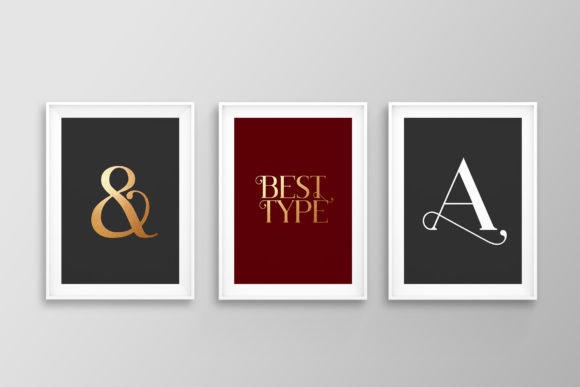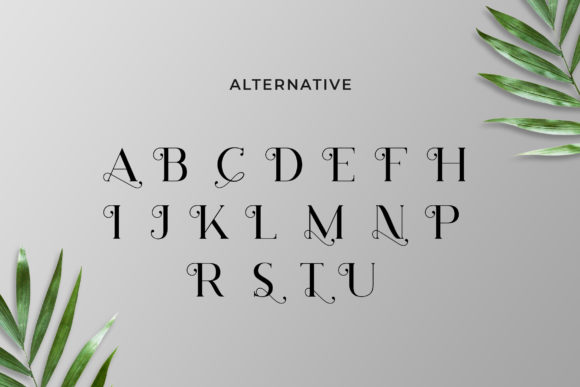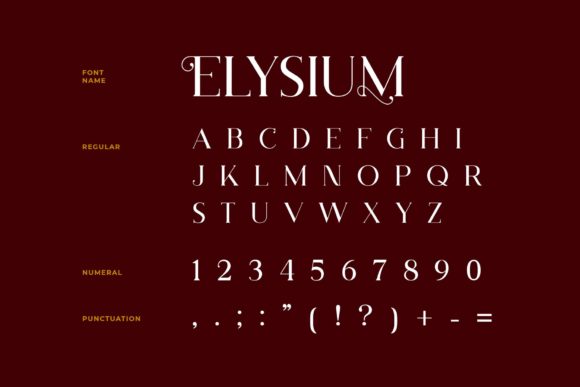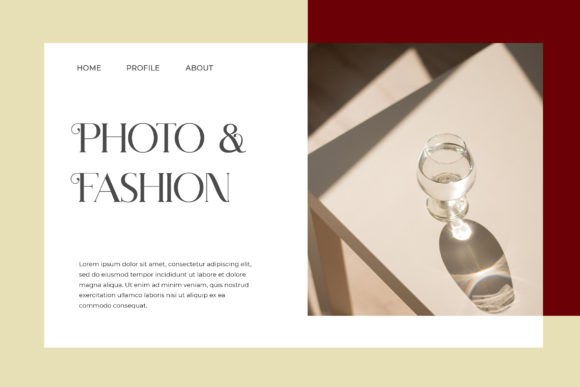
Elysium Font: Elevate Your Designs with Elegance and Assertiveness
Elysium is an elegant and assertive serif font that has been making waves in the design community. Its versatility and sophistication make it an excellent choice for a wide range of projects, from luxury branding to elegant stationery. In this article, we’ll dive into the world of Elysium Font, exploring its features, benefits, and uses, as well as provide tips on how to incorporate it into your creative projects.
The Characteristics of Elysium Font
Elysium Font is a serif font, characterized by its classic and timeless look. The font features elegant lines, refined curves, and a assertive presence that commands attention. Its unique blend of sophistication and confidence makes it perfect for designers and crafters looking to add a touch of luxury to their work.
What Makes Elysium Font Stand Out?
Elysium Font stands out from other fonts due to its exceptional versatility. It can effortlessly be matched to an incredibly large set of projects, making it a valuable addition to any designer’s toolkit. Whether you’re working on a high-end branding campaign, a wedding invitation, or a fashion magazine, Elysium Font is sure to make your project stand out.
Benefits of Using Elysium Font
- Elegance and Sophistication: Elysium Font adds a touch of luxury and refinement to any project, making it perfect for high-end branding and designs.
- Versatility: Elysium Font can be used in a wide range of projects, from print materials to digital designs, and from formal to informal settings.
- Assertiveness: The font’s assertive presence ensures that your message gets noticed, making it perfect for headlines, titles, and emphasis text.
How to Use Elysium Font in Your Designs
Using Elysium Font in your designs is easy and straightforward. Here are a few tips to get you started:
- Pair it with a sans-serif font: Combine Elysium Font with a clean sans-serif font to create a striking contrast and add visual interest to your design.
- Experiment with font sizes: Play with different font sizes to create a hierarchy of information and add emphasis to your text.
- Use it for headlines and titles: Take advantage of Elysium Font’s assertive presence by using it for headlines and titles that need to grab attention.
Tips for Crafters and Designers
Whether you’re a seasoned designer or a crafty DIY enthusiast, Elysium Font can help elevate your projects to the next level. Here are a few tips to keep in mind:
- Use it for special occasions: Elysium Font is perfect for special occasions like weddings, anniversaries, and birthdays, where a touch of elegance and sophistication is desired.
- Experiment with colors and textures: Don’t be afraid to experiment with different colors and textures to add depth and interest to your design.
- Keep it simple: Remember that sometimes less is more. Keep your design simple and let Elysium Font do the talking.
Elysium Font is an elegant and assertive serif font that can effortlessly be matched to an incredibly large set of projects. Its versatility, sophistication, and assertiveness make it an excellent choice for designers and crafters looking to add a touch of luxury to their work. With its wide range of uses and benefits, Elysium Font is sure to become a staple in any designer’s toolkit. So why wait? Add Elysium Font to your creative ideas and notice how it makes them stand out!